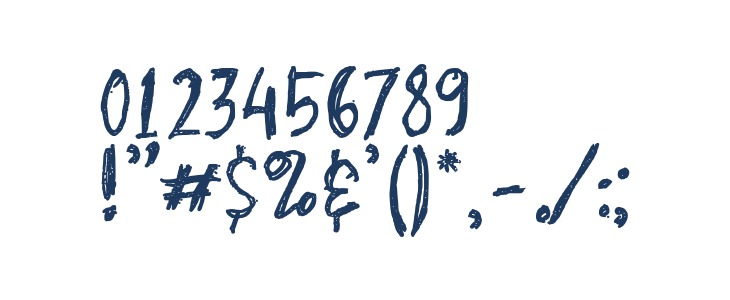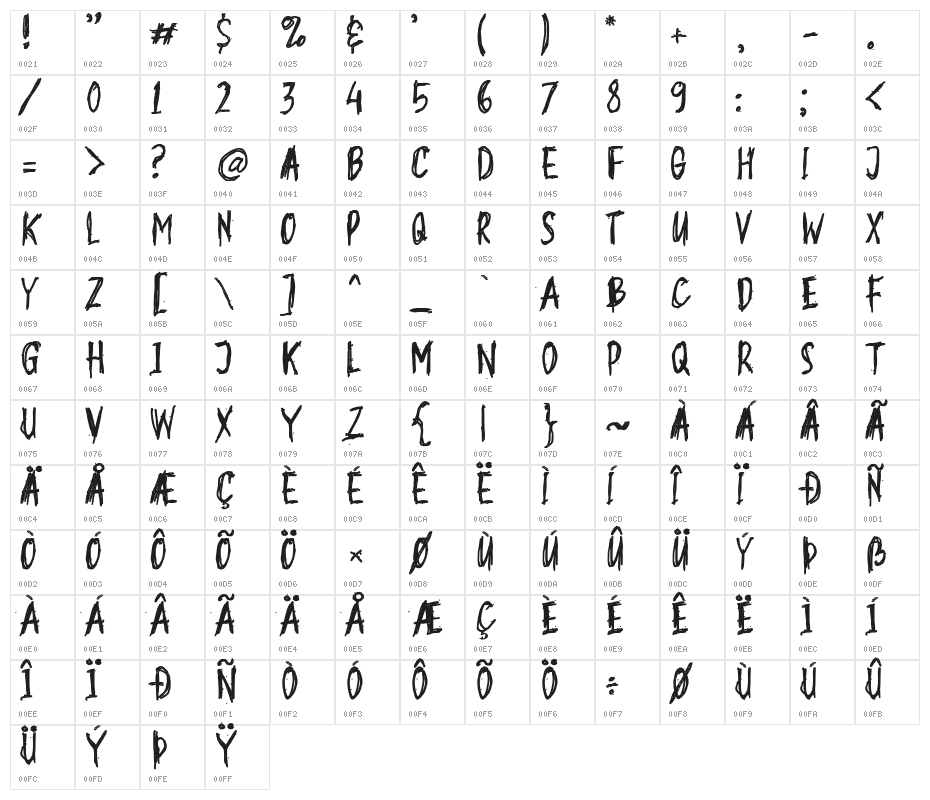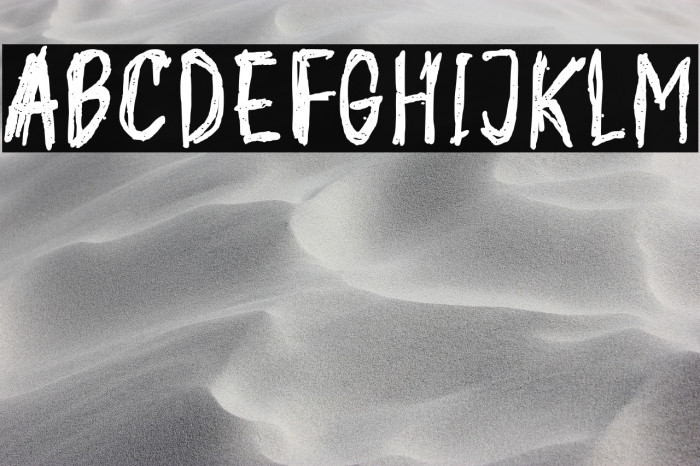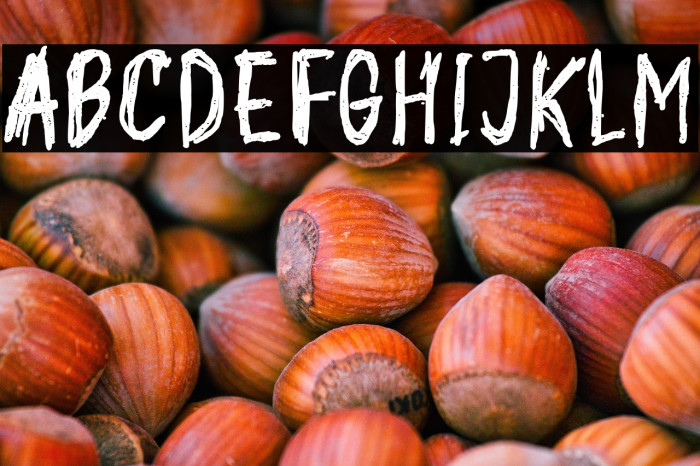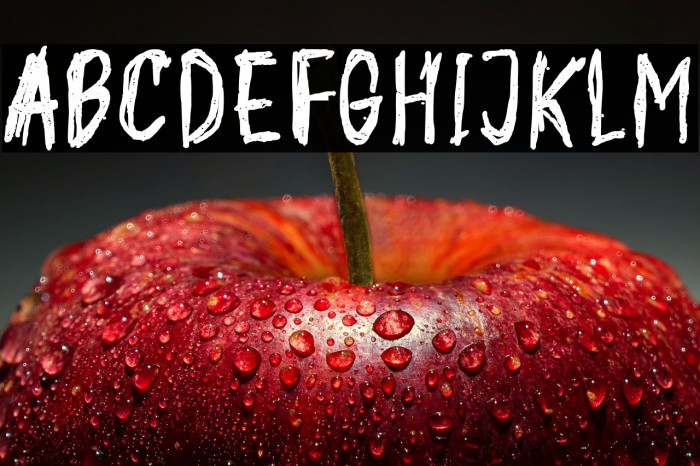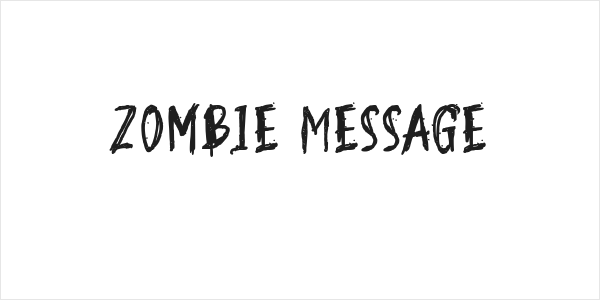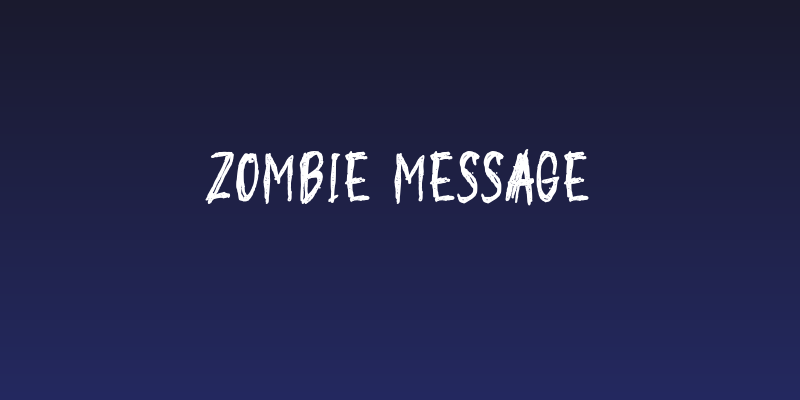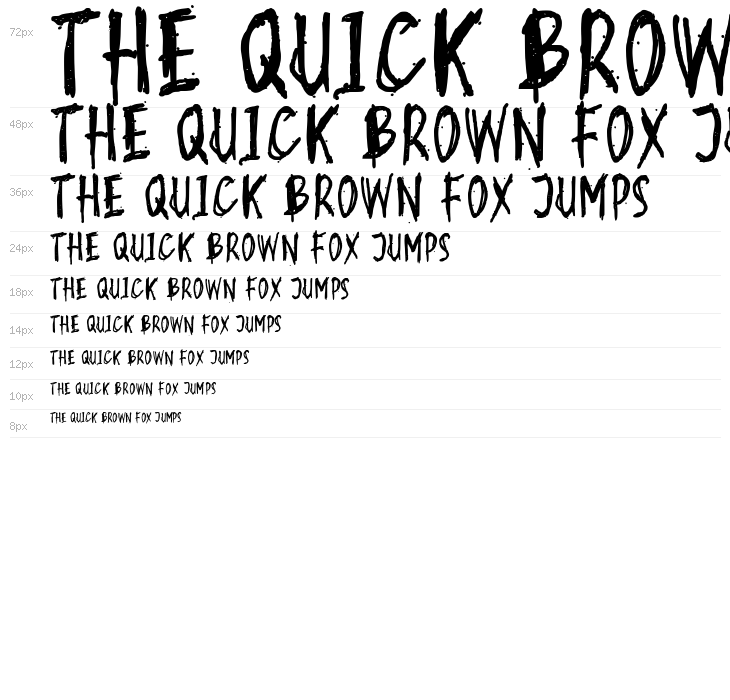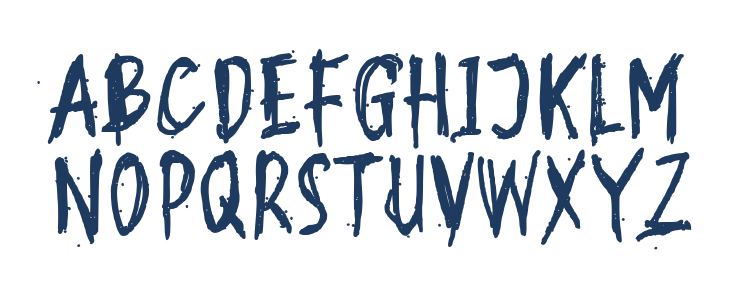
Zombie Message Font
Zombie Message Description
This font exudes a raw, edgy aesthetic with its hand-drawn, brush-like strokes. Each character is crafted with uneven lines and irregular edges, giving it a distressed and grungy appearance. The uppercase and lowercase letters maintain a consistent style, with exaggerated curves and angles that enhance its dynamic look. Numbers and special characters follow the same rugged design, ensuring a cohesive visual theme. The font's overall style is reminiscent of horror or thriller genres, making it ideal for projects that require a bold and impactful statement. Its unique character shapes and artistic flair make it stand out, perfect for creative and unconventional designs.
| Use Case | Headlines, Posters, Logos |
| Proposed Projects | Ideal for horror movie posters, Halloween event flyers, edgy apparel designs, and album covers. |